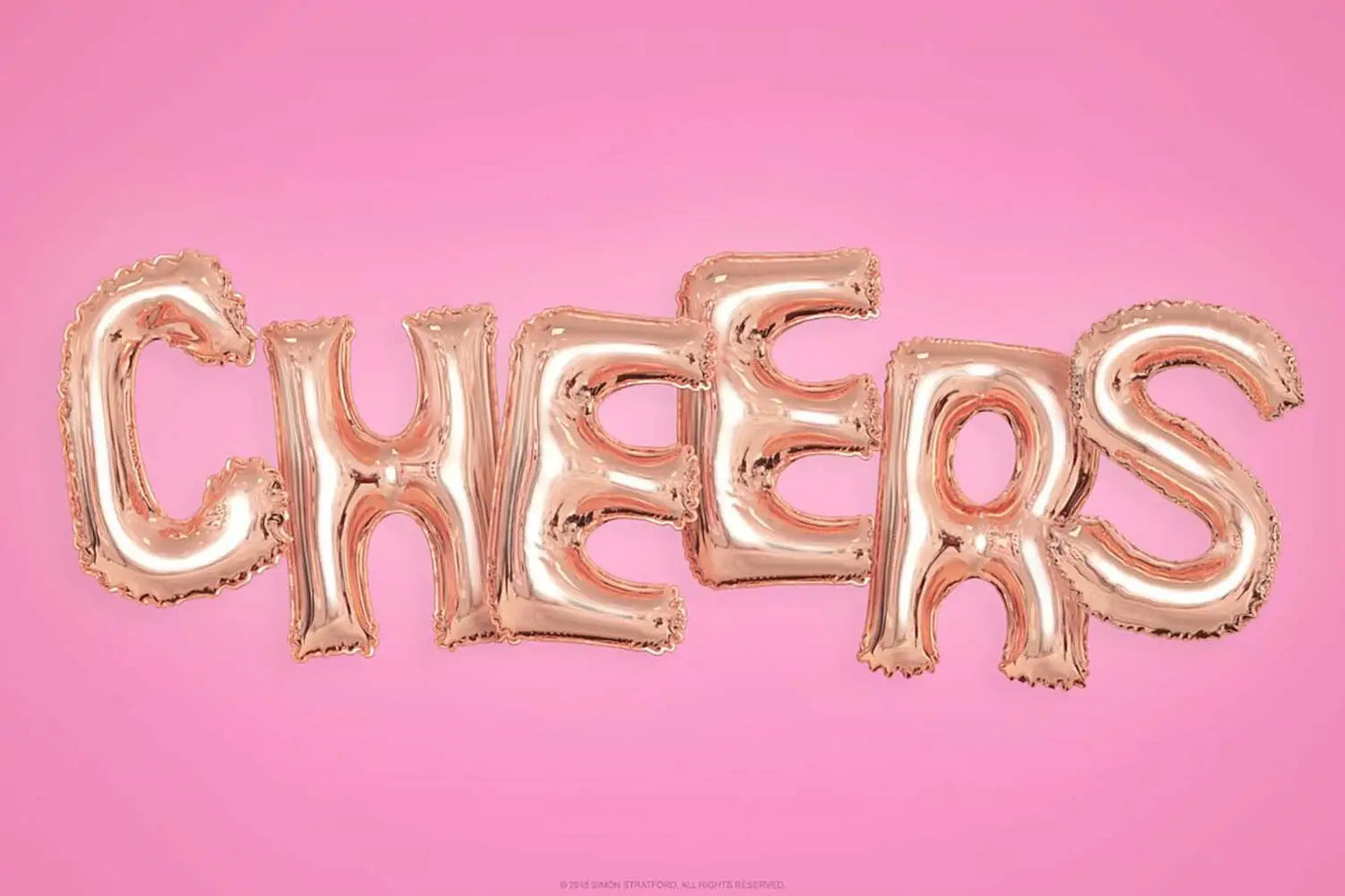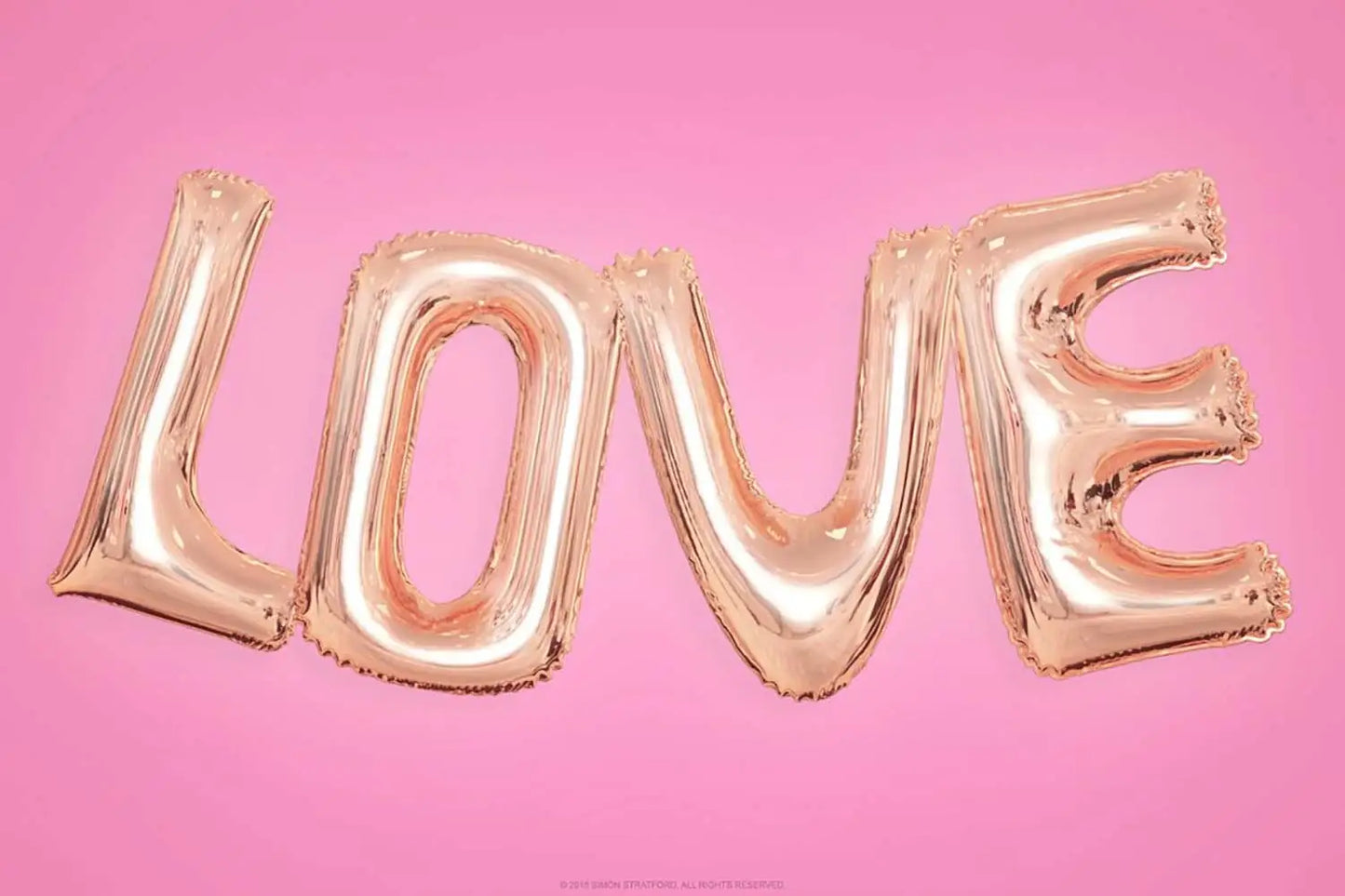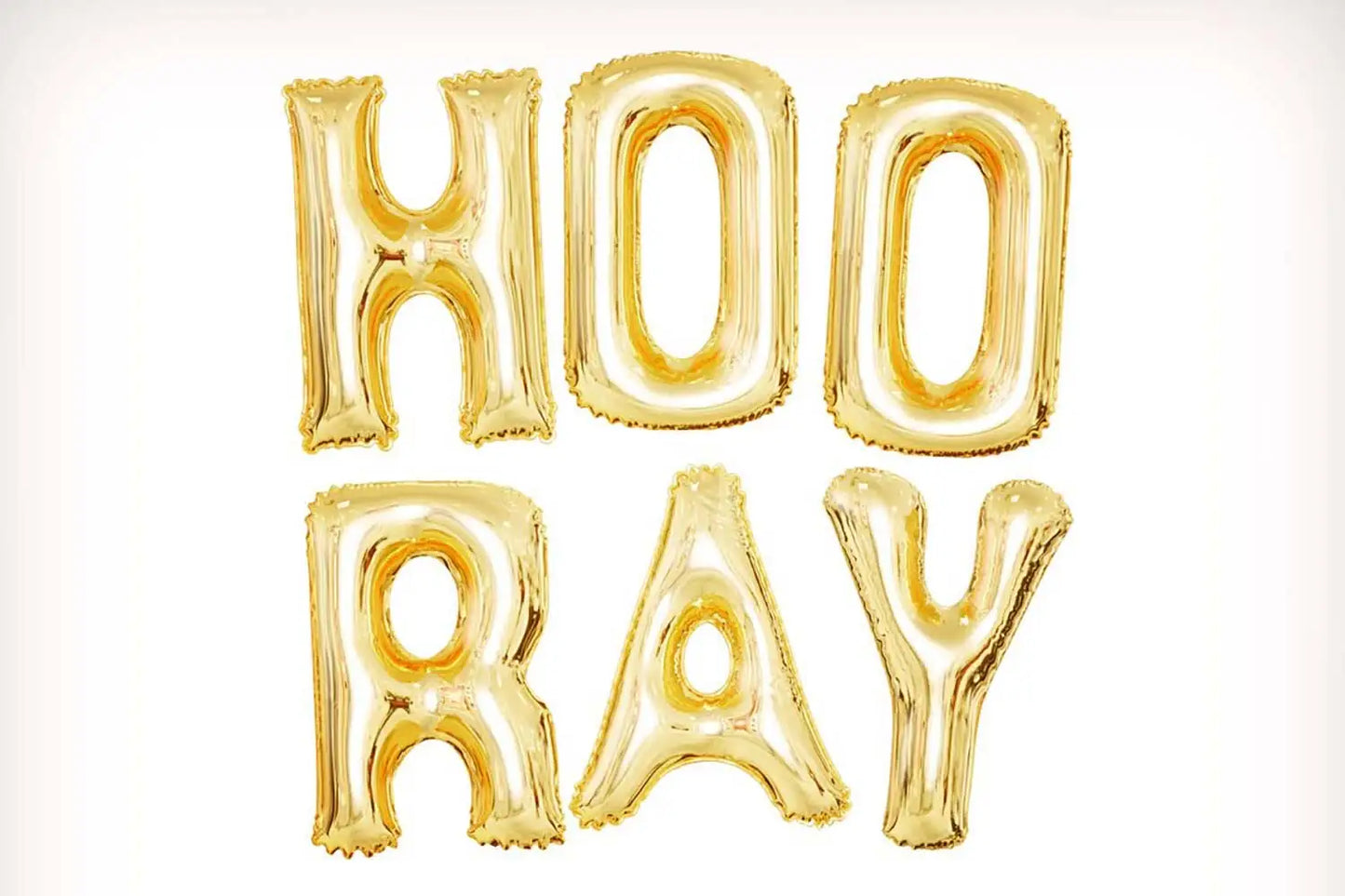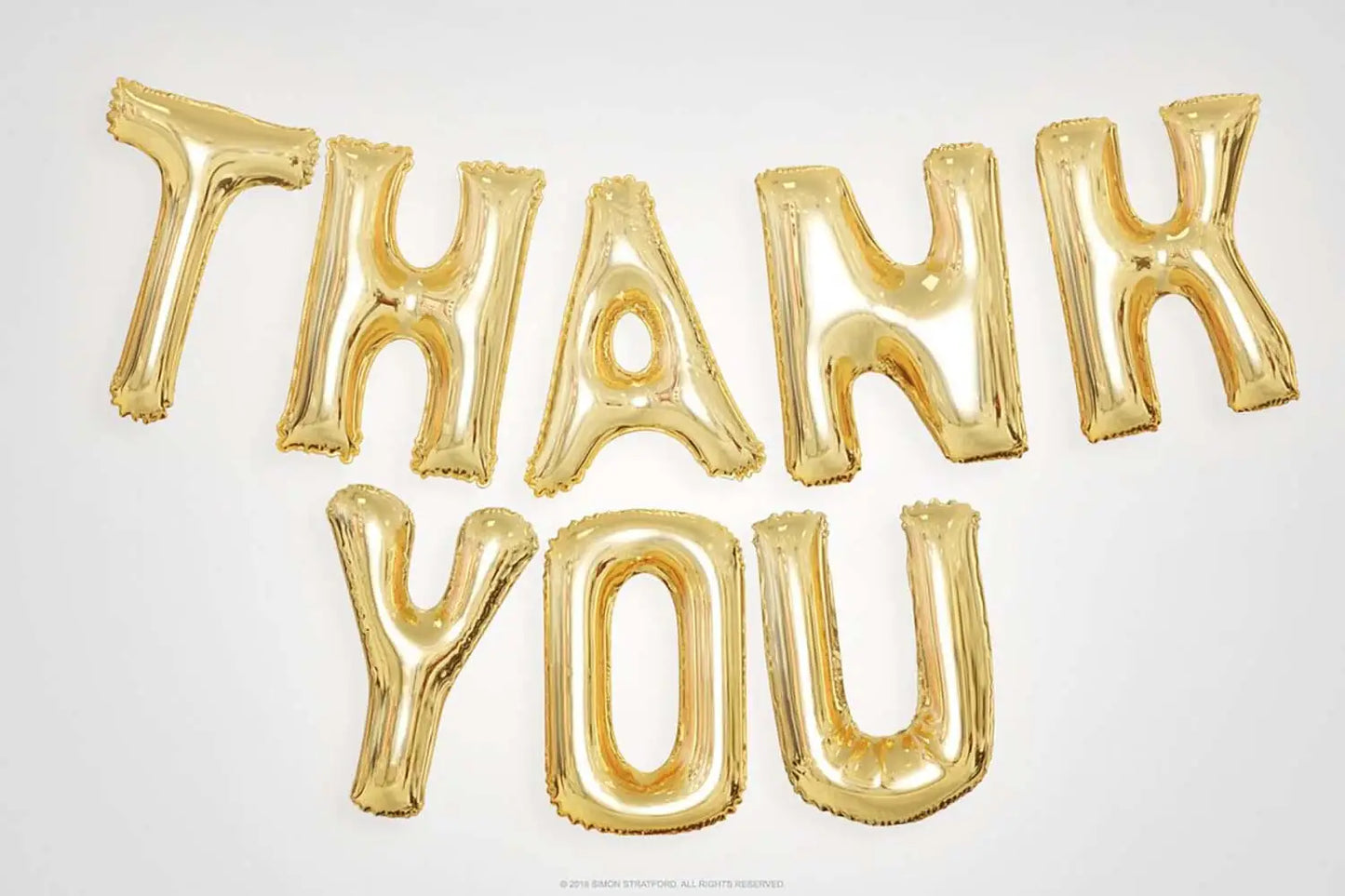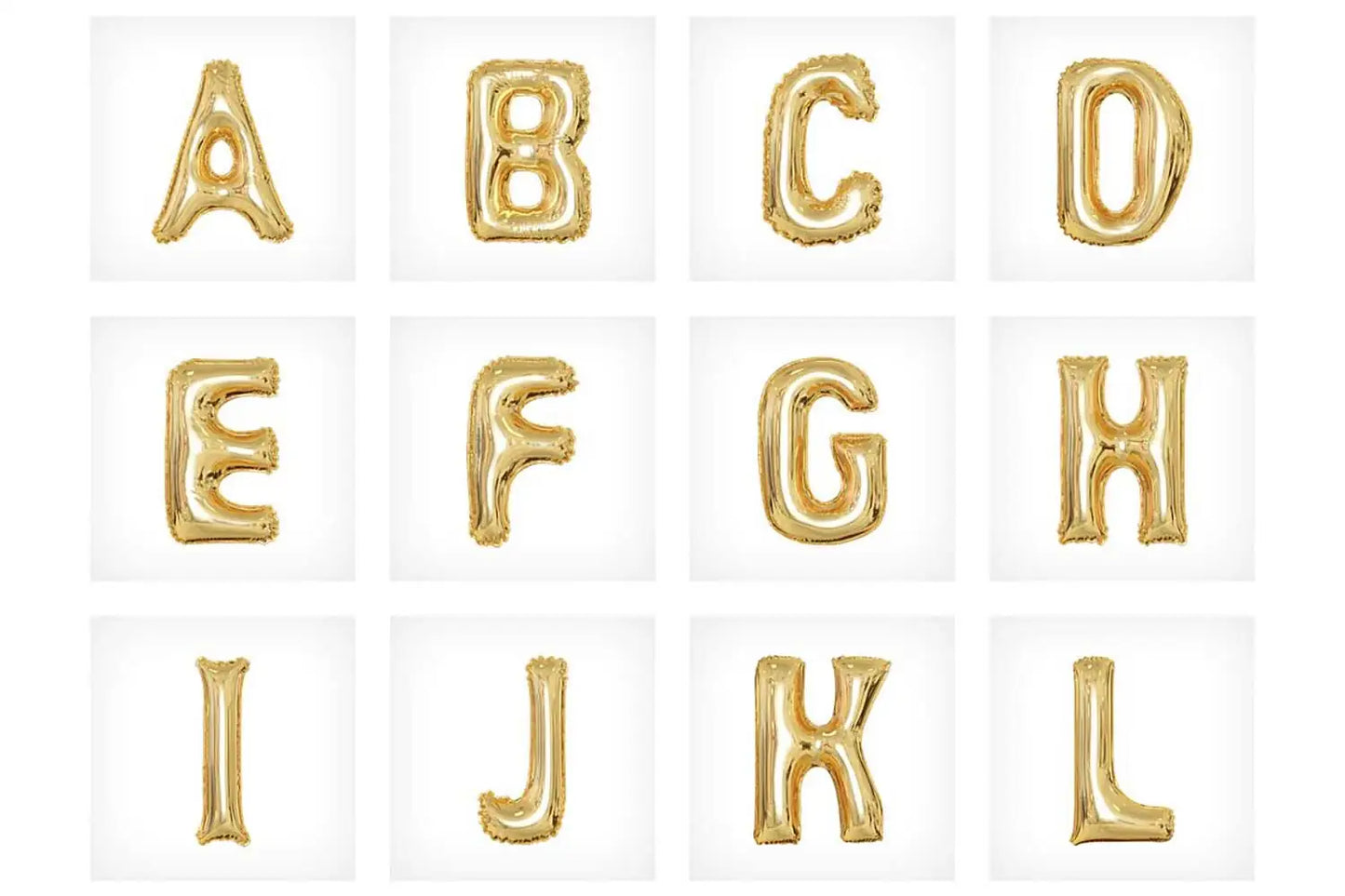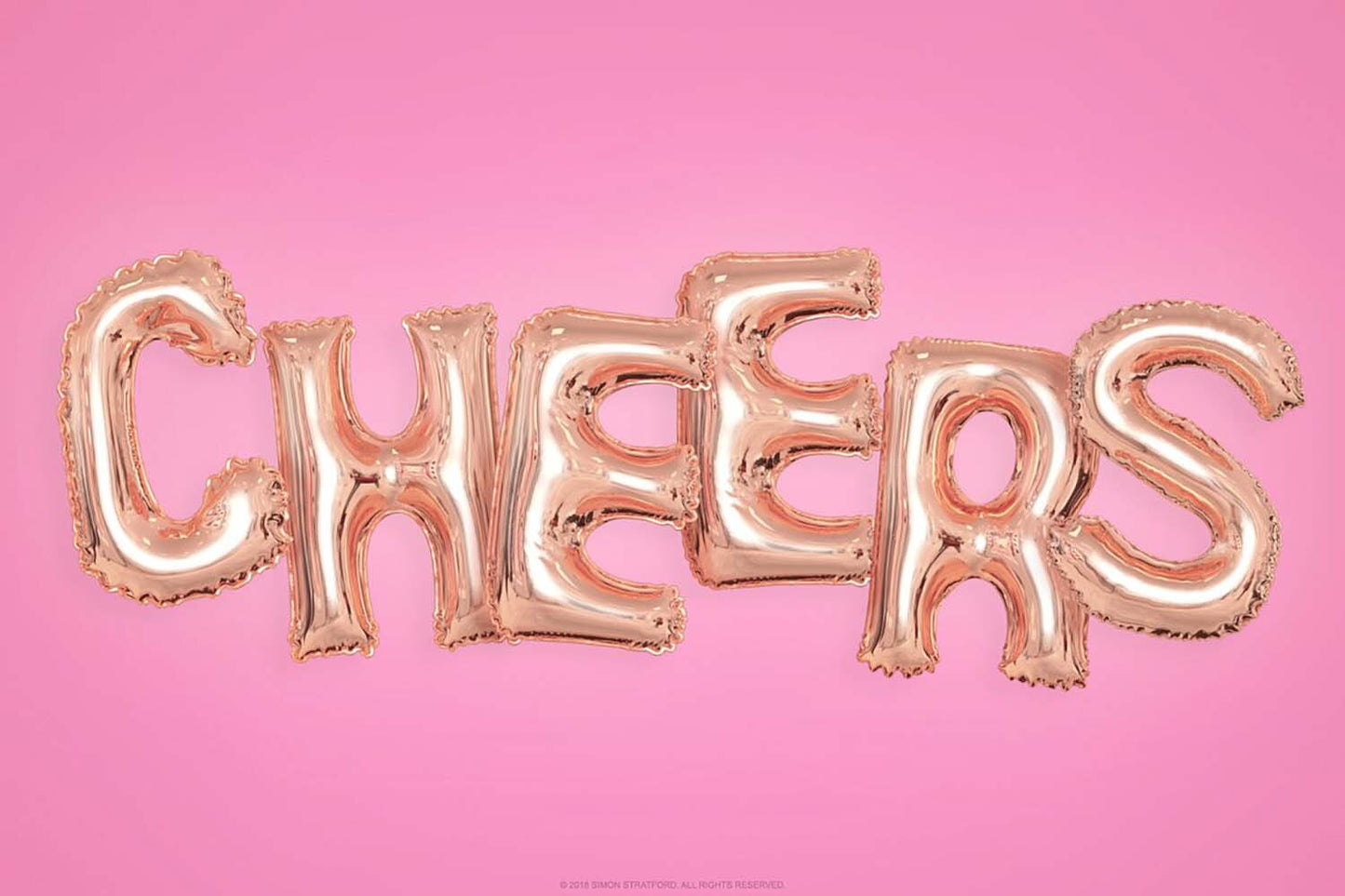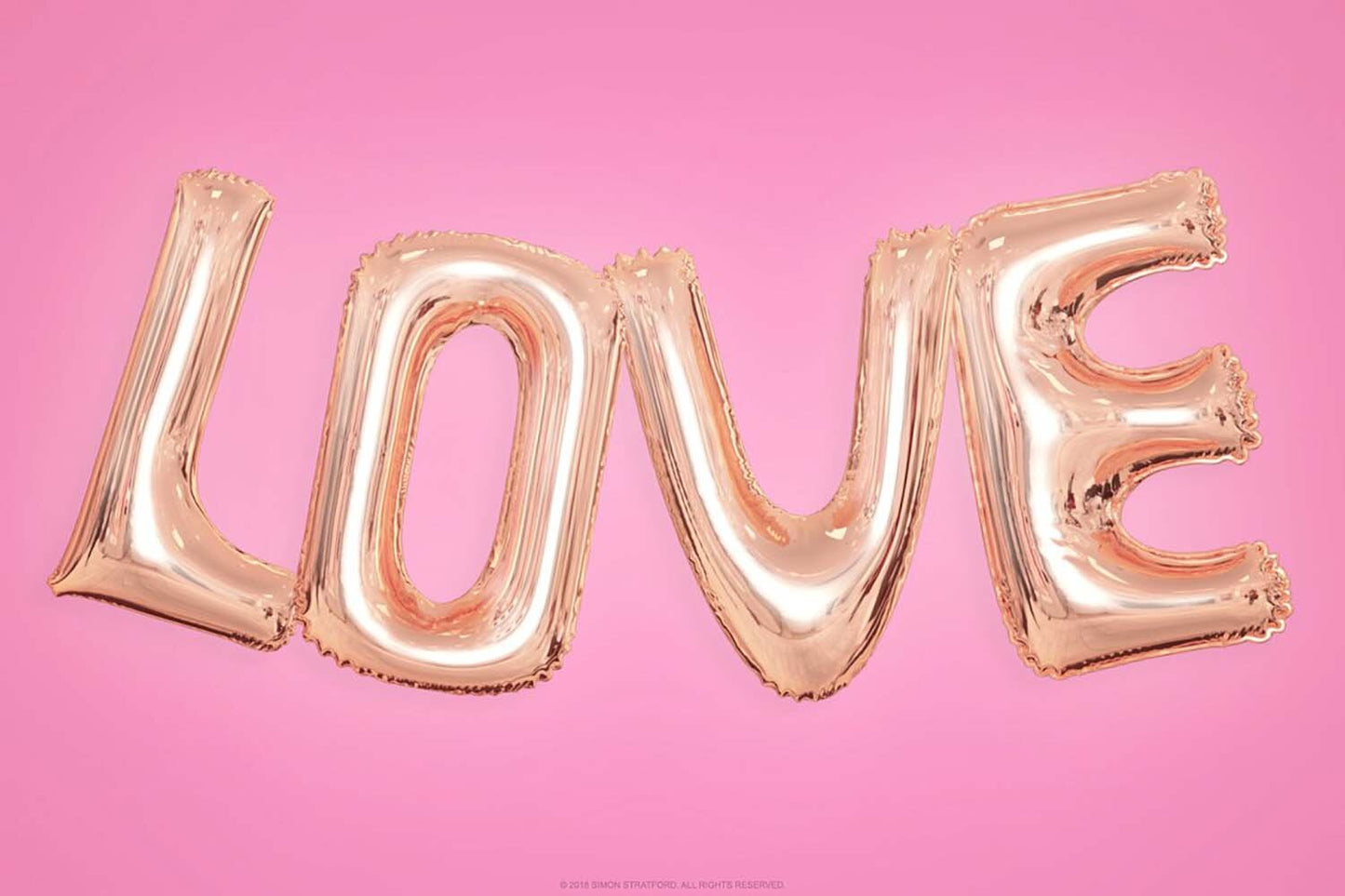
Yeah SVG
About Yeah SVG
Yeah font is a gold foil typeface, big, bold and full of life—It's high-octane pop kitsch at its ironic best.
It's my first proper colour bitmap font. Full colour, who thought that would ever be possible? It uses cutting-edge technology, otherwise known as OpenType-SVG, to unlock a whole new world of colour.
Each letter was modelled in 3D and made to look like a foil balloon. You might know them as Mylar balloons or party balloons. They have a kind of metallic foil coating and are full of helium.
The font has two flavours—Silver and Gold. It would be perfect for birthday cards, baby showers, anniversaries, social messaging, weddings, and any other celebration you can think of.
If Yeah font were a celebrity
It might just be Katy Perry. The pop star loves to throw a party, just like Yeah font.